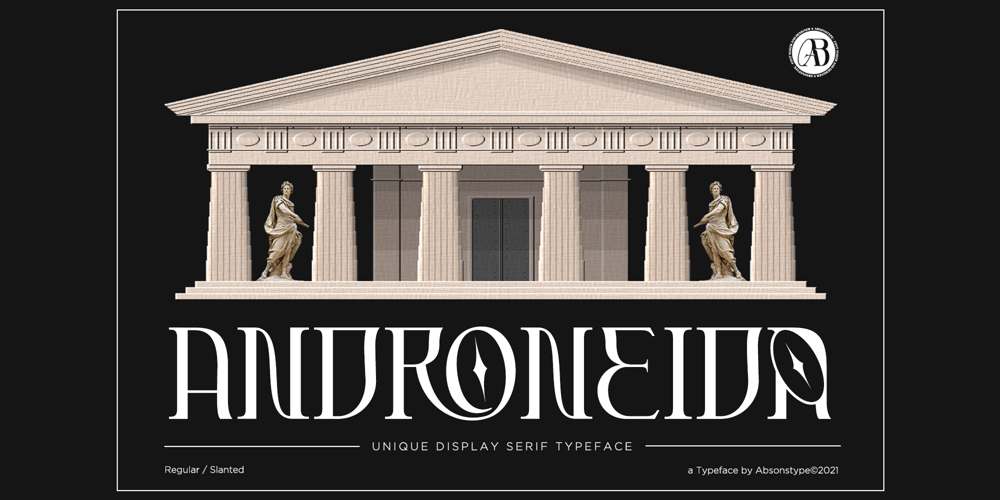
Androneida
Androneida font
Androneida Font Family was designed by Edhi Prayitno and published by Absonstype. Androneida contains 2 styles and family package options. ANDRONEIDA is the display serif style with combine uppercase and lowercase looks and feel nice balanced. Provide with alternates and ligatures font in variant style make the design letter looks nice. Honestly it works perfectly for headlines, logos, posters, packaging, T-shirts and much more.Recommended to use in Adobe Illustrator or Adobe Photoshop with opentype feature.Ligatures feature is default setting in Adobe Illustrator or Adobe Photoshop in Uppercase character. So when you want not to use the ligatures.Open glyphs panel : In Adobe Photoshop choose tool Window >> Character and then please click fi symbol In Adobe Illustrator choose tool Window >> Type >> Open Type and then please click fi symbol How to access Alternates Character?Open glyphs panel : In Adobe Photoshop choose tool Window >> glyphs In Adobe Illustrator choose tool Type >> glyphs